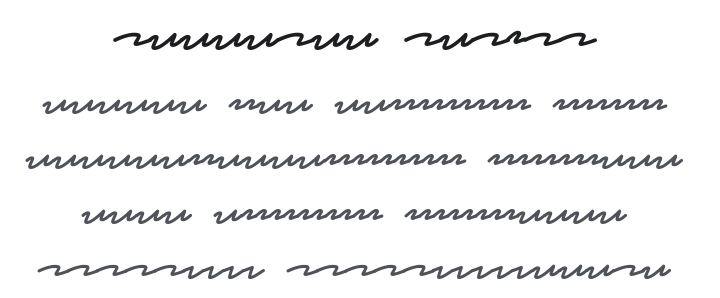
Redacted Script Font Family
by Christian Naths
Redacted Script Font Family
About Redacted Script
Redacted and Redacted Script are suitable for wireframing and rapid prototyping. Designed to be unreadable, it keeps your wireframes free of distracting Lorem Ipsum or other dummy text.